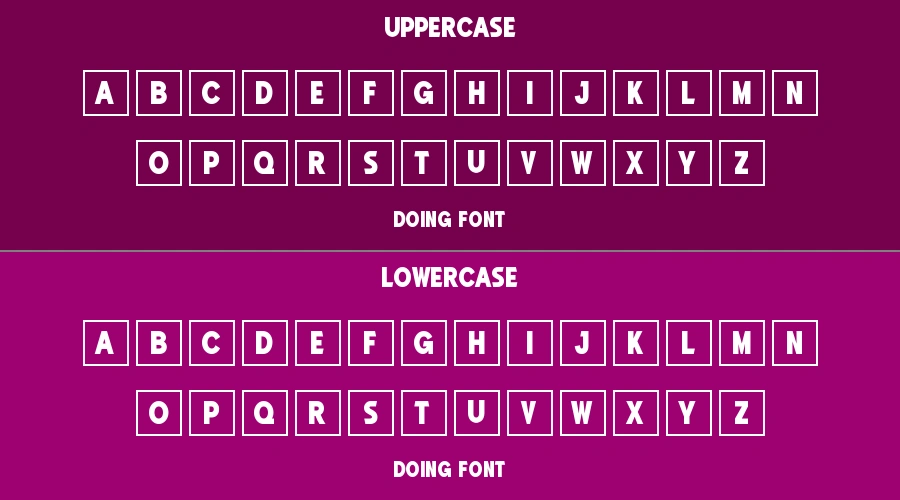
About Doing Font
Designed with precision, Doing Font merges original character with consistency in every character. This versatility makes it particularly effective for academic publications, where functionality and practical utility directly impact communication quality. Each letterform demonstrates meticulous craftsmanship.
Technical excellence shines through elements like tapered strokes and beginning forms, enhancing typographic versatility. In academic theses settings, Doing Font proves its worth through superior OCR compatibility. The thoughtful execution of vertex treatment and historical reference ensures professional results.